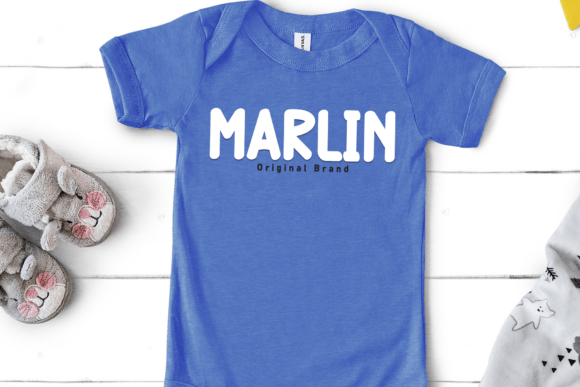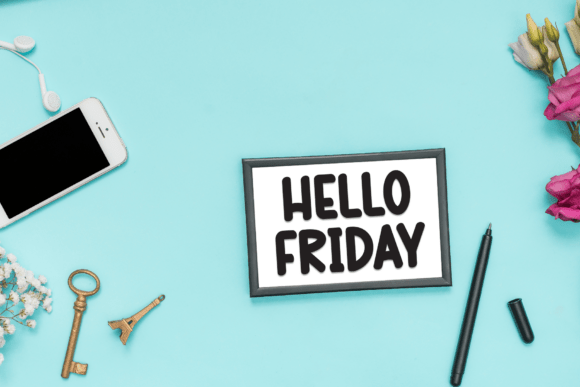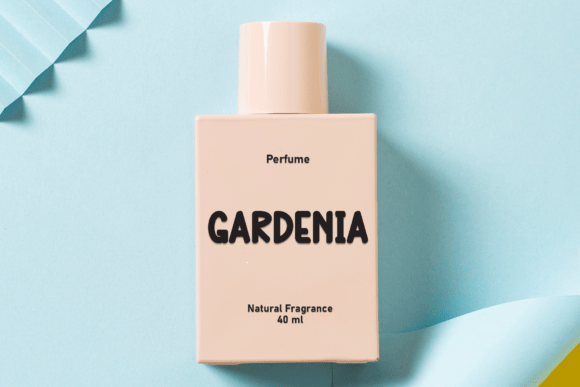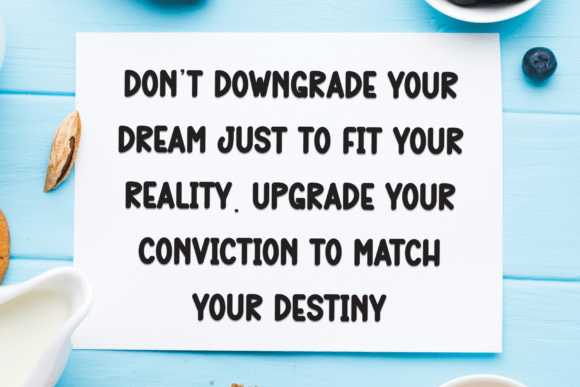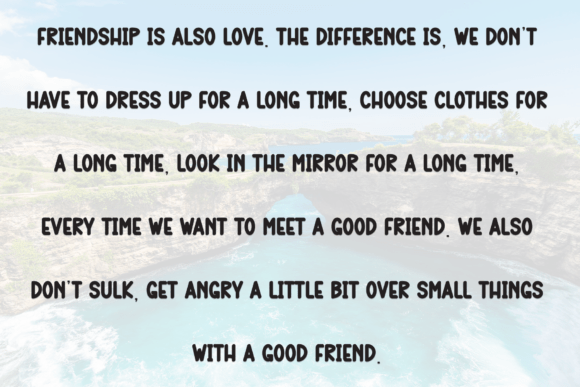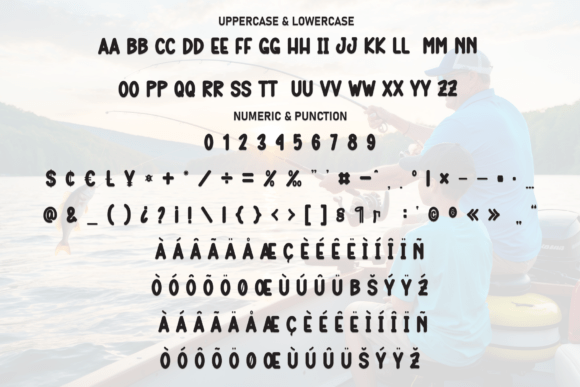
Fishing Font: The Perfect Choice for Your Design Projects
Fishing Font is a casual and neat display font that has been designed to bring warmth and clarity to your projects. With its clean structure and approachable style, it is perfect for branding, headlines, and everyday designs. In this article, we will explore the features and benefits of Fishing Font, and why it is a great choice for designers and crafters.
Clean Structure and Approachable Style
One of the standout features of Fishing Font is its clean structure and approachable style. The font has been designed to be easy to read and understand, making it perfect for use in a variety of design projects. Whether you are creating a logo, brochure, or website, Fishing Font is a great choice. Its clean lines and simple shapes make it easy to pair with other design elements, and its approachable style ensures that your message will be well-received by your audience.
Balanced Letterforms for Readability and Charm
The balanced letterforms of Fishing Font are another one of its key features. The font has been designed to offer excellent readability, making it perfect for use in body text and headlines. The letterforms are carefully crafted to be clear and easy to read, even at small sizes. This makes Fishing Font a great choice for designers who need to create text-heavy designs, such as brochures, flyers, and websites.
In addition to its readability, Fishing Font also has a charming and inviting quality. The font has a friendly and approachable feel, which makes it perfect for use in designs where you want to create a warm and welcoming atmosphere. Whether you are creating a logo for a children’s brand, a website for a lifestyle company, or a brochure for a travel agency, Fishing Font is a great choice.
Perfect for Branding, Headlines, and Everyday Designs
Fishing Font is a versatile font that is perfect for use in a variety of design projects. Its clean structure and approachable style make it a great choice for branding, headlines, and everyday designs. Here are just a few examples of how you can use Fishing Font in your designs:
- Branding: Use Fishing Font as a logo font to create a strong and recognizable brand identity. Its clean lines and simple shapes make it easy to scale and pair with other design elements.
- Headlines: Use Fishing Font as a headline font to add a touch of warmth and personality to your designs. Its balanced letterforms and clear structure make it easy to read, even at large sizes.
- Everyday Designs: Use Fishing Font in everyday designs, such as brochures, flyers, and websites, to add a touch of charm and approachability. Its friendly and inviting feel makes it perfect for use in designs where you want to create a warm and welcoming atmosphere.
Why Designers and Crafters Love Fishing Font
Designers and crafters love Fishing Font for a variety of reasons. Here are just a few:
- Easy to Read: Fishing Font is easy to read, even at small sizes. This makes it perfect for use in text-heavy designs, such as brochures and websites.
- Versatile: Fishing Font is a versatile font that can be used in a variety of design projects, from branding and headlines to everyday designs.
- Charming: Fishing Font has a charming and inviting quality that makes it perfect for use in designs where you want to create a warm and welcoming atmosphere.
- Clean Structure: Fishing Font has a clean structure that makes it easy to pair with other design elements.
In conclusion, Fishing Font is a great choice for designers and crafters who are looking for a casual and neat display font. Its clean structure and approachable style make it perfect for use in branding, headlines, and everyday designs. Its balanced letterforms offer excellent readability and charm, making every message feel genuine and inviting. Whether you are creating a logo, brochure, or website, Fishing Font is a great choice.
So why not give Fishing Font a try? With its versatility, charm, and readability, it is sure to become a favorite in your design toolkit.